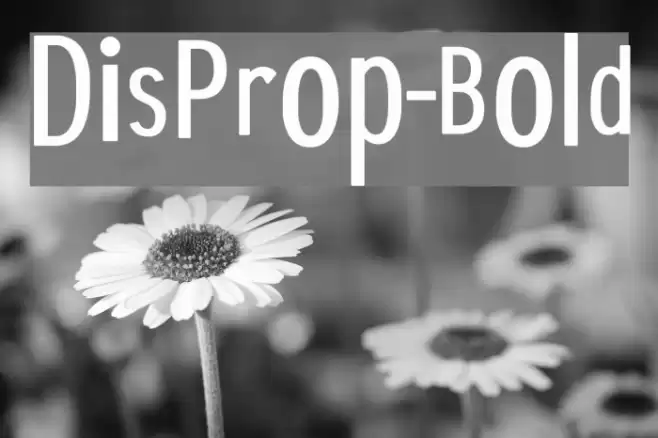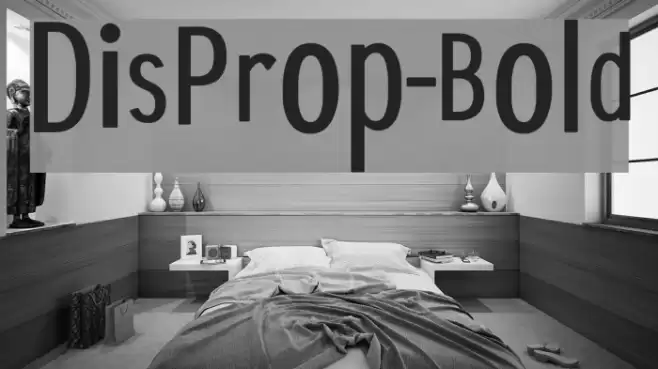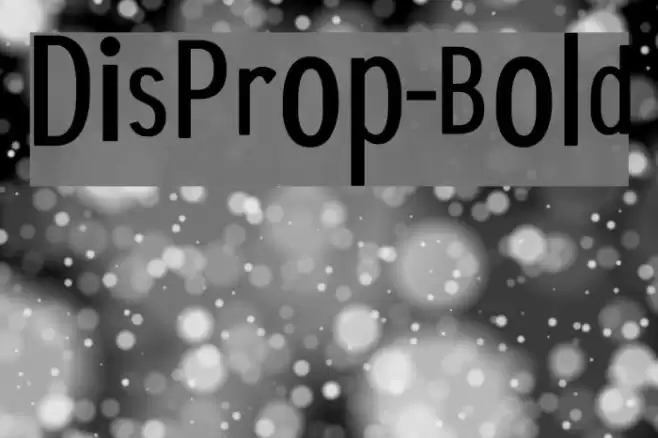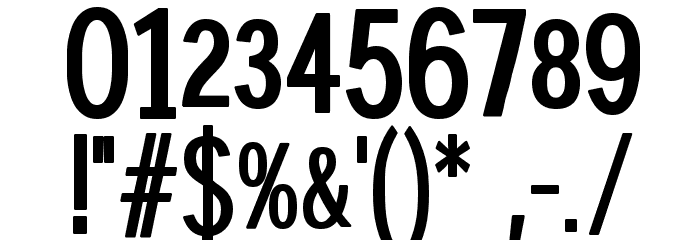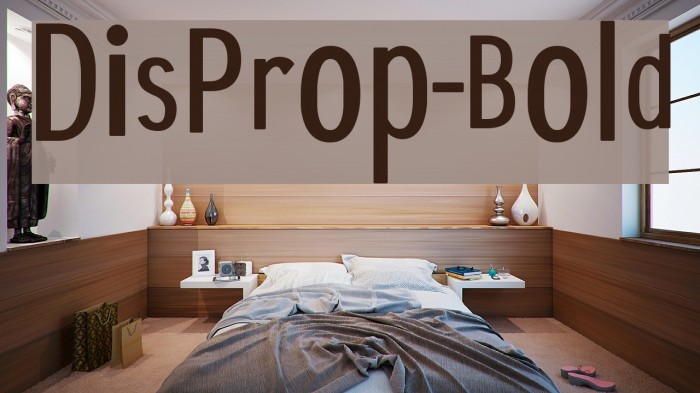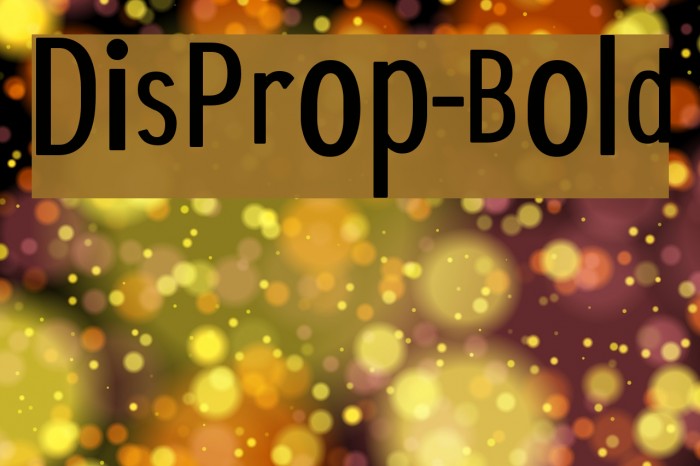
DisProp-Bold Font
DisProp-Bold Description
This font features a bold and assertive style with clean, straight lines and a modern aesthetic. The characters are well-defined with a uniform stroke width, giving it a strong presence. The uppercase letters are tall and commanding, while the lowercase letters maintain a consistent height, ensuring readability. The numerals are clear and distinct, making them suitable for various applications. Special characters are included, offering versatility for different design needs. Overall, this font exudes a contemporary and professional look, making it ideal for impactful headlines and branding projects.
A bold, modern font with clean lines and a strong presence from Uncategorized fonts.